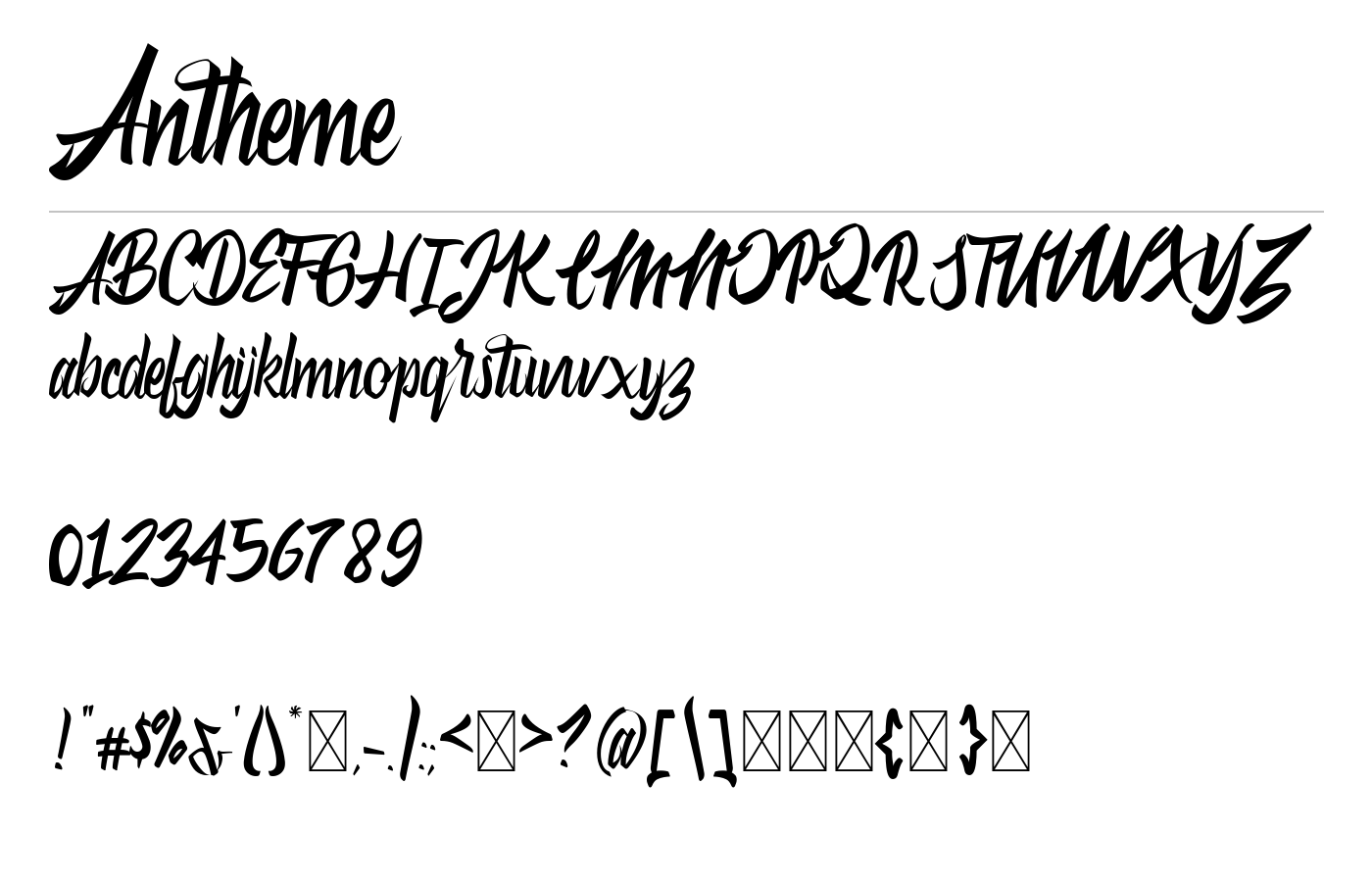
Antheme is a bold and dynamic script font with a lively, handwritten feel, featuring smooth, flowing strokes and a moderately high x-height for readability. Its sharp, slightly angular letterforms and distinctive uppercase letters convey energy and personality, making it ideal for creative branding, fashion, and expressive headline use. This font works best where a stylish, modern, and confident impression is desired, especially in logos, posters, and editorial designs.
Antheme Font